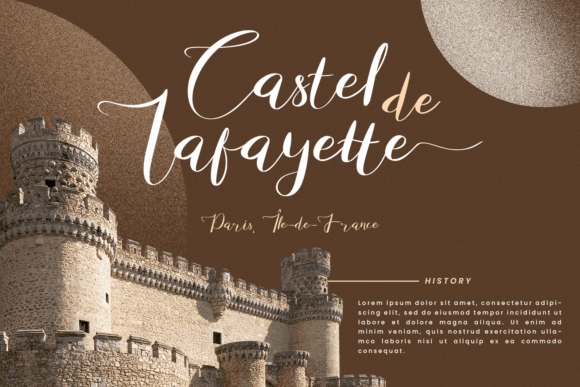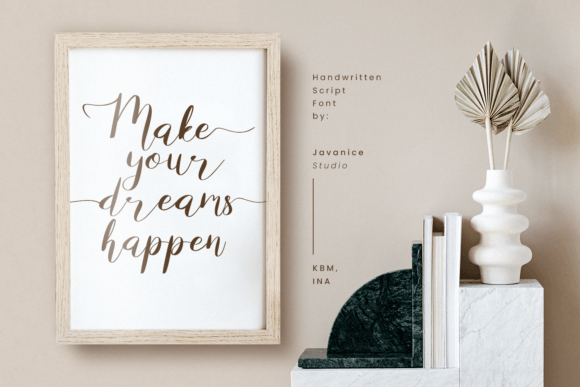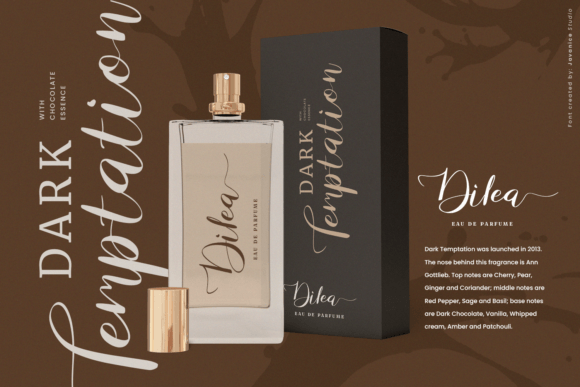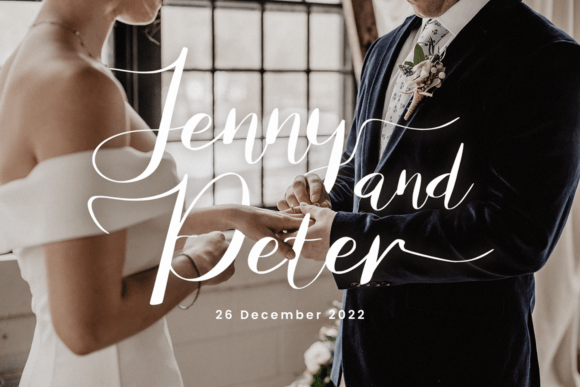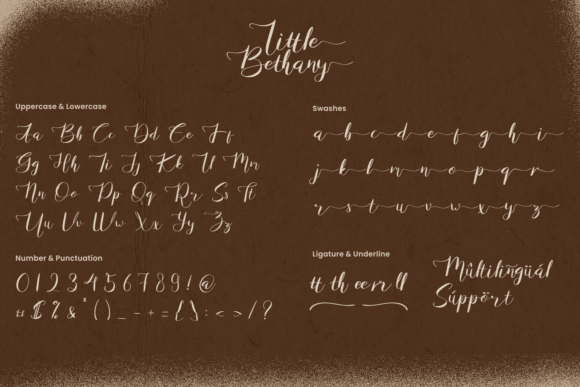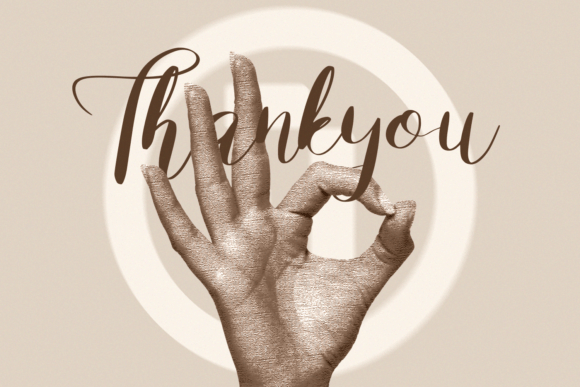
Introduction to Little Bethany Font
Little Bethany is A Handwritten Script Font Little Bethany is perfect for branding projects, apparel, labels, magazines, books, greeting/wedding cards, packaging, fashion, makeup, stationery, and any type of advertising purpose, or just used to express words above the background.
Key Features of Little Bethany Font